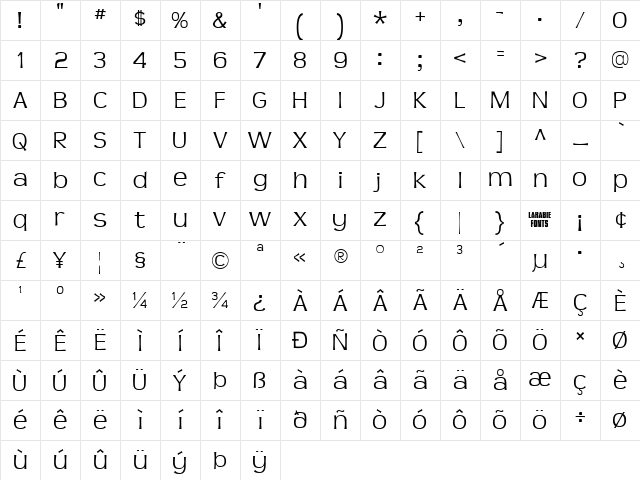
Teen is a composed and adaptable typeface that performs quietly and consistently across a wide range of design contexts. Its slender proportions lend an understated elegance to any composition.